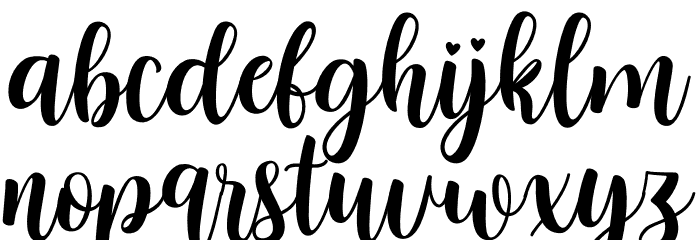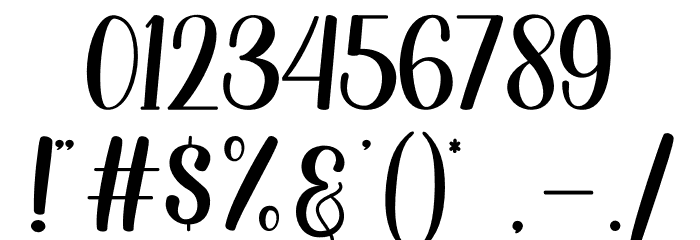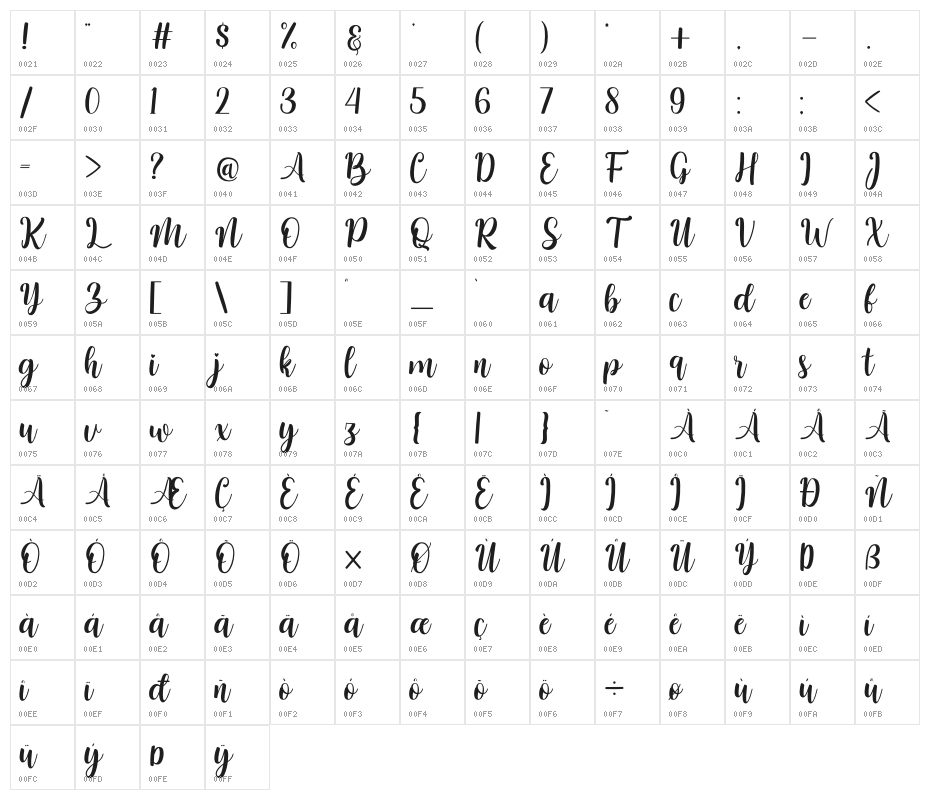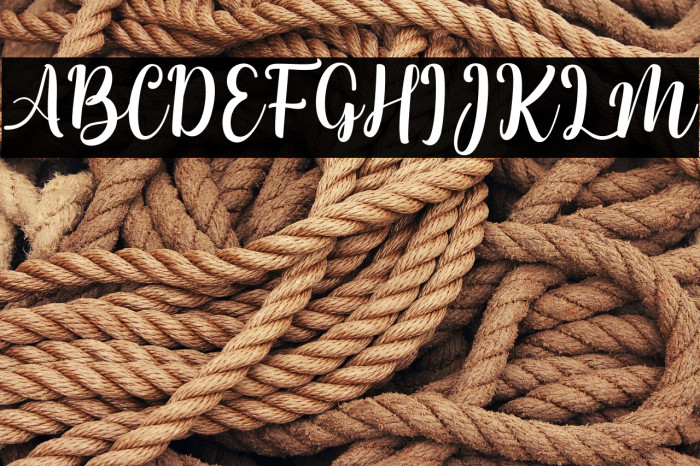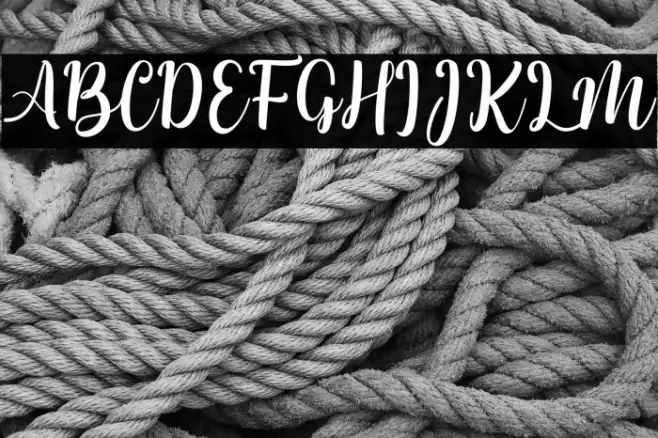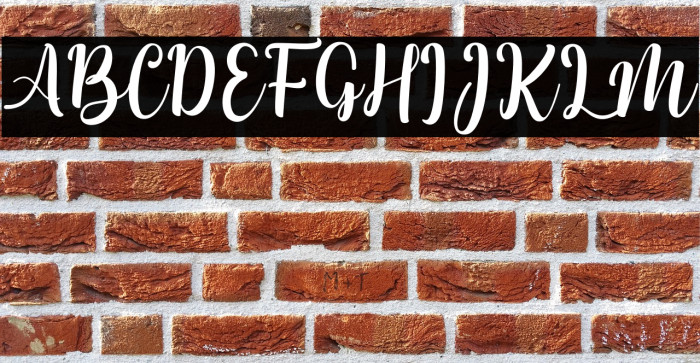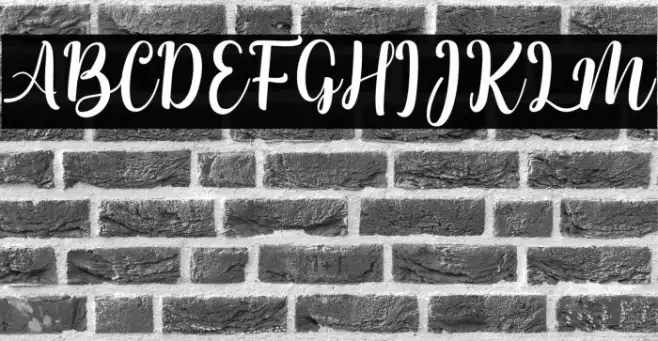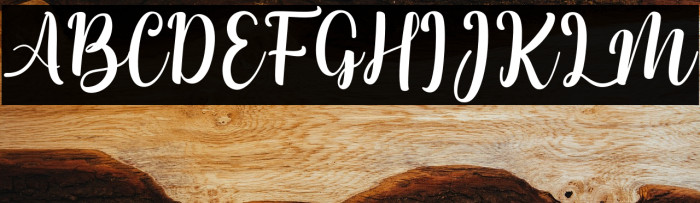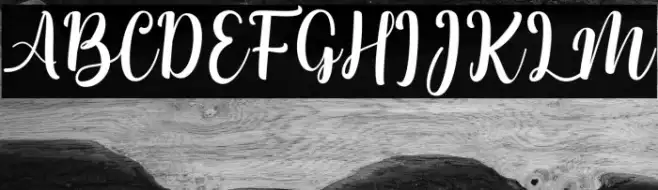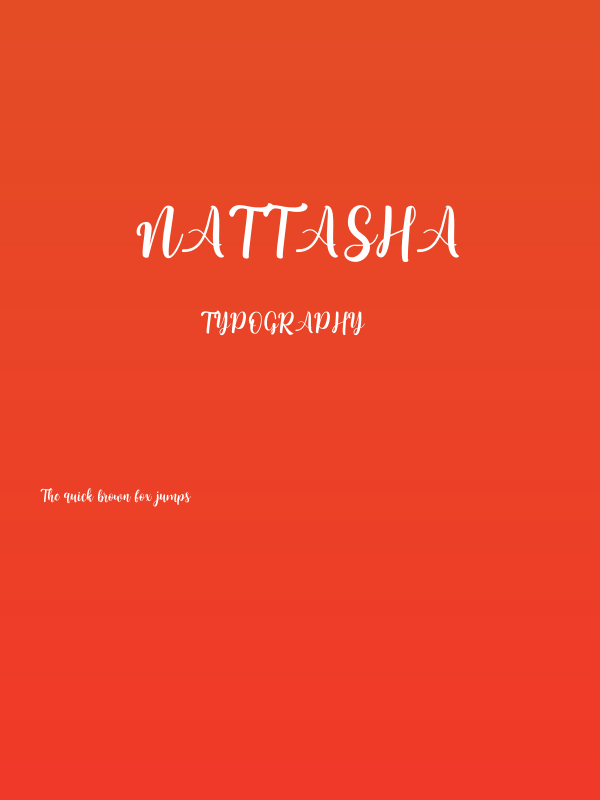
Nattasha Font
This font features a lively and flowing script style, characterized by its elegant and cursive letterforms. The uppercase letters are bold and expressive, with sweeping curves and loops that give a sense of movement and grace. The lowercase letters maintain a consistent flow, with smooth connections between characters, enhancing readability while retaining a decorative flair. The numerals are bold and slightly condensed, matching the overall style of the alphabet. Special characters are designed with the same attention to detail, ensuring they integrate seamlessly with the text. This font is perfect for projects that require a touch of elegance and sophistication.
A lively and elegant script font with bold, flowing letterforms.
- Font: Nattasha
- Proposed Projects: Ideal for wedding invitations, greeting cards, branding, and logo design.
- Category: Script
- Use Case: Logos, Headlines, Invitations